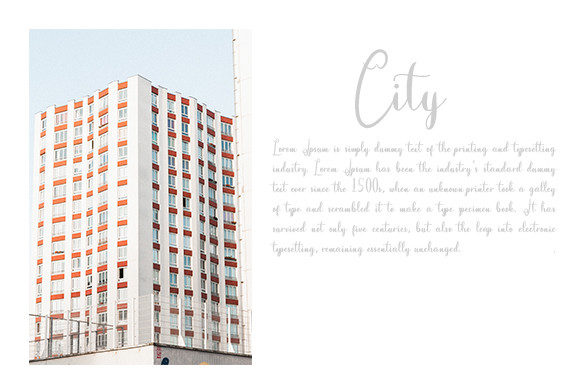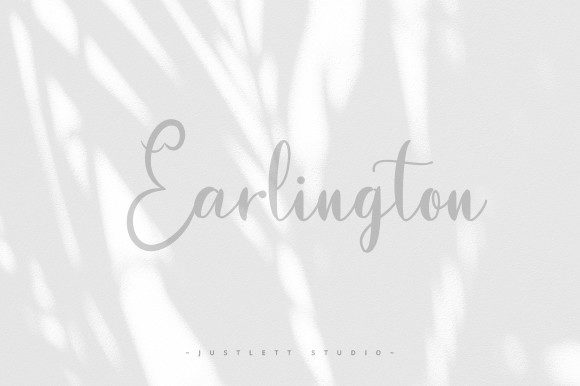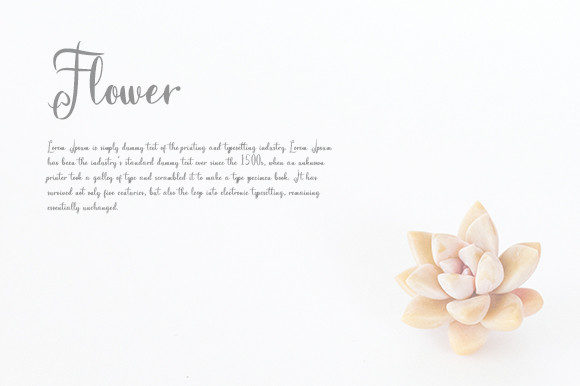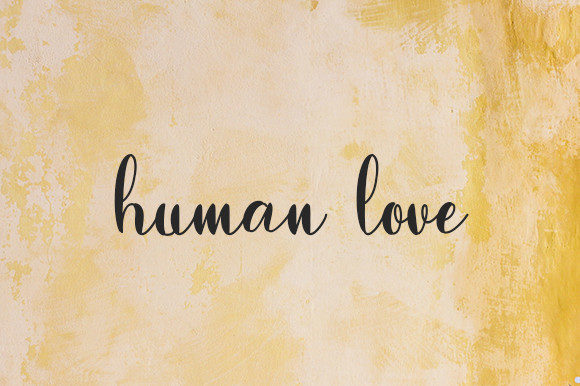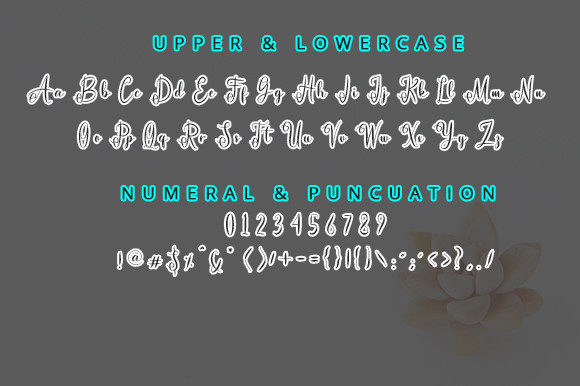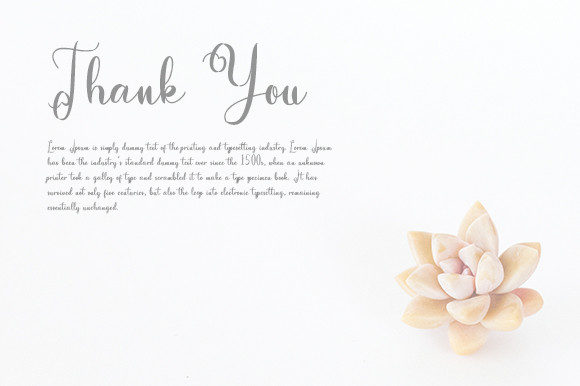
The Designer’s Delight: Earlington Font
Ah, the quest for the perfect font. We’ve all been there – stuck in the middle of a design project, scrolling through font libraries, and yet, nothing seems quite right. I recall working on a branding project for a boutique client, desperate to find a font that would capture the essence of their elegant yet playful vibe. That’s when I stumbled upon Earlington, a handwritten font that instantly resonated with me. In this article, we’ll dive into the world of Earlington, exploring its unique charm, and how to make the most of it in your design projects.
A First Impression: What I Love About Earlington
Earlington is a beautifully crafted handwritten font, inspired by classic typography. Here are a few things that I absolutely love about it:
- ✨ Elegant yet approachable: Earlington strikes the perfect balance between sophistication and friendliness, making it suitable for a wide range of design projects.
- ✅ Highly versatile: Whether you’re designing for the web, print, or motion graphics, Earlington performs exceptionally well in various contexts.
- 💫 Unique character: This font has a distinct personality that sets it apart from more generic fonts, adding a touch of whimsy to your designs.
A Few Quirks to Consider
No font is perfect, and Earlington has a few minor limitations to keep in mind:
- 🤔 Limited use in very small sizes: While Earlington is great for headlines, it may not be the best choice for body text or very small font sizes.
- ⚠️ Some letters may require manual kerning: As with many handwritten fonts, you may need to adjust the kerning of certain letter combinations to achieve optimal results.
The Story Behind Earlington
While the exact origins of Earlington might be shrouded in mystery, it’s easy to imagine a designer, inspired by the classic typography of the past, crafting this beautiful font with love and care. Perhaps they wanted to create a font that would bring a touch of elegance and whimsy to design projects, making Earlington a versatile and delightful choice.
| Font Name | Earlington Font |
| Author | Justlett |
| Is Earlington suitable for body text? | While Earlington is stunning for headlines, it might not be the best choice for extensive body text due to its elegant, yet somewhat ornate nature. |
| Does Earlington support OpenType features? | Yes, Earlington comes with a range of OpenType features, including ligatures and stylistic alternates, allowing for greater typographic control. |
In conclusion, Earlington is a beautifully crafted handwritten font that can elevate your design projects with its unique style and versatility. Whether you’re a designer, crafter, or creative hobbyist, Earlington is sure to become a favorite in your font library.